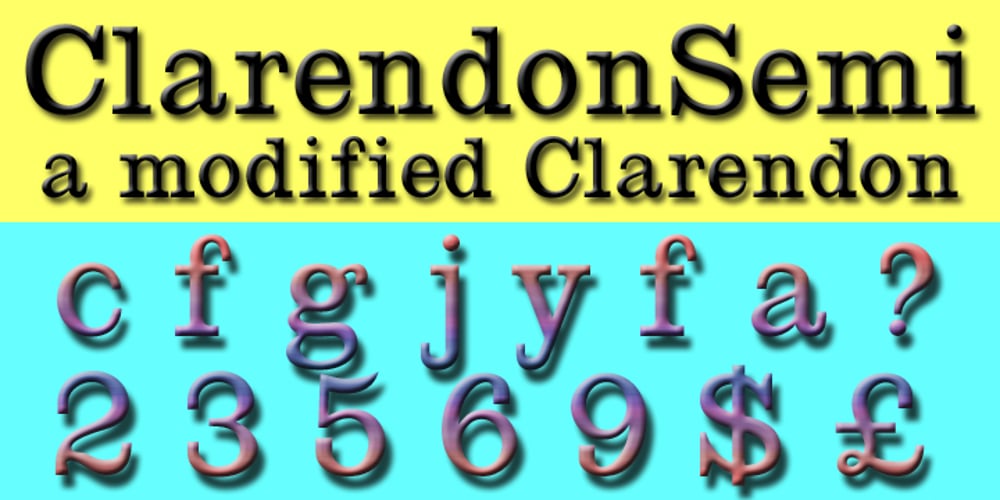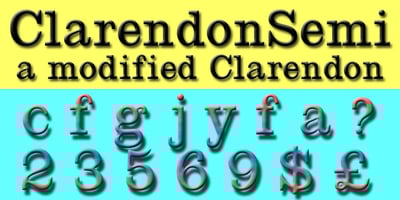
Clarendon Semi
Clarendon Semi font
Clarendon Semi Font Family was designed by Jordan Davies, Robert Besley and published by Wooden Type Fonts. Clarendon Semi contains 1 styles and family package options. One of the classic display types of the 19th century, an Egyptian with bracketed serifs. There are many variants of this face and its uses are many, this a modified version lacking the teardrop or ball terminals on a, c, f, g, j, r, f, y.